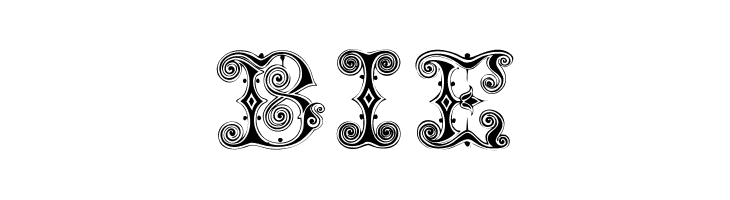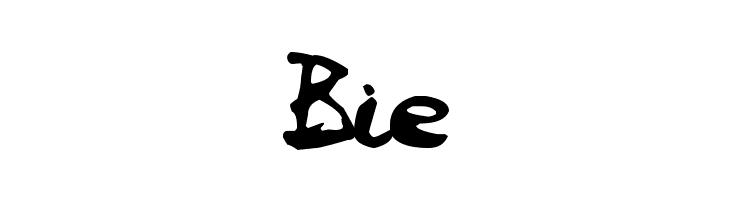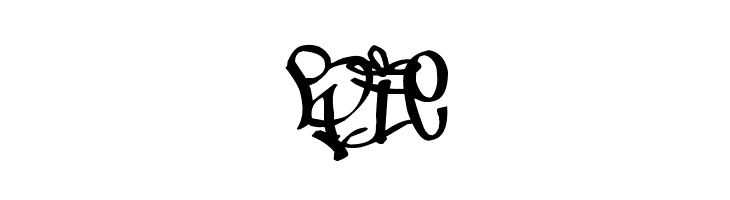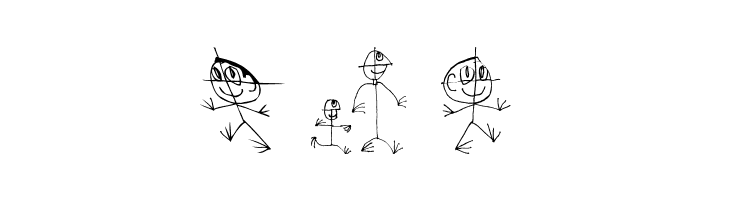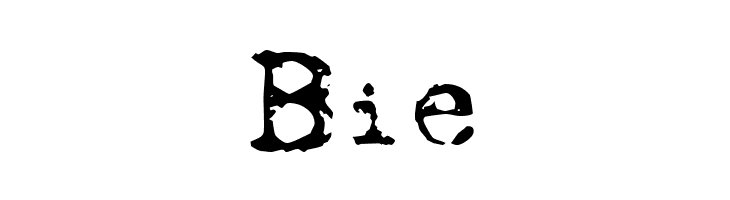
• Unnamed Melody
A dynamic, cursive script font with a brush-like texture.
• UnzialusLatinus
A medieval, calligraphic font with bold, hand-drawn characters.
• URBAN HOOKUPZ Bold
A bold, graffiti-inspired font with an urban, edgy style.
• UWJack8
• Valerie Hand
A playful, casual handwritten font with a friendly and organic style.
• VampyrsMK
A playful, hand-drawn font with a whimsical and informal style.
• VaticanianInitials
An ornate, decorative font with intricate swirls and embellishments.
• Vaudoo RF
• Vaudoo2RF
• Vectories
A playful, illustrative display font made up of character drawings.